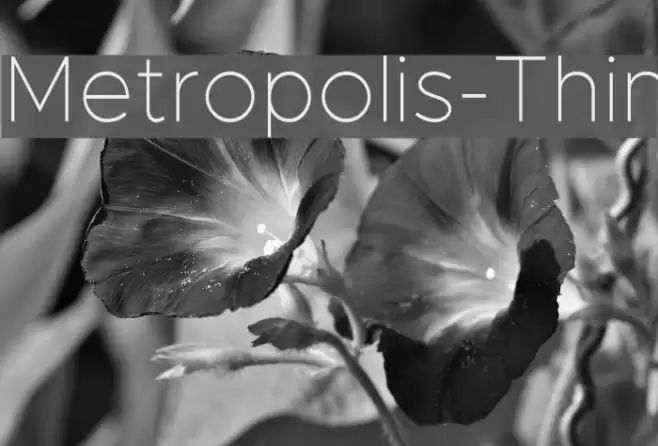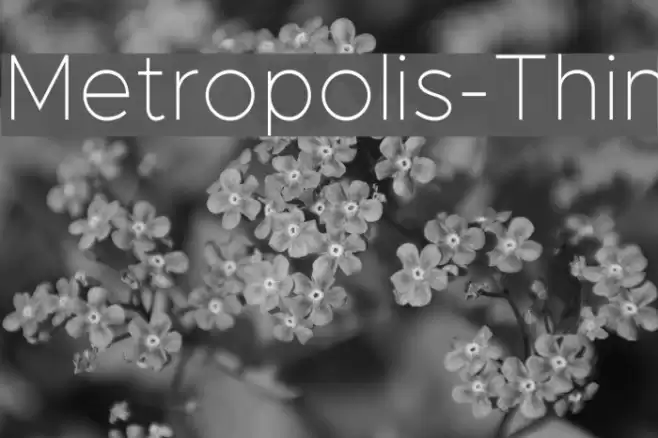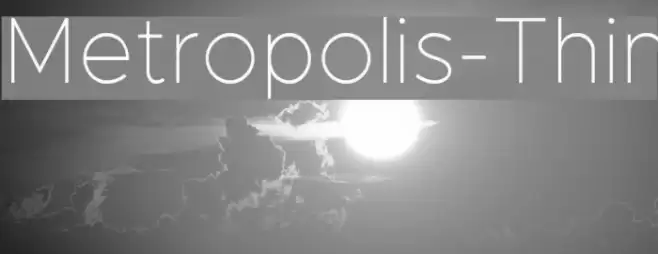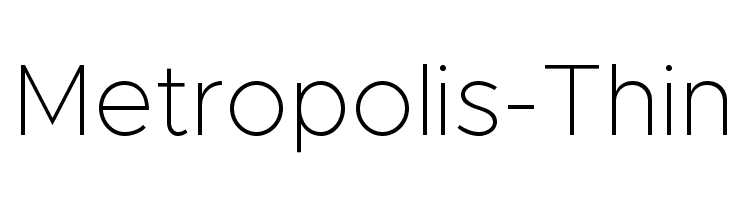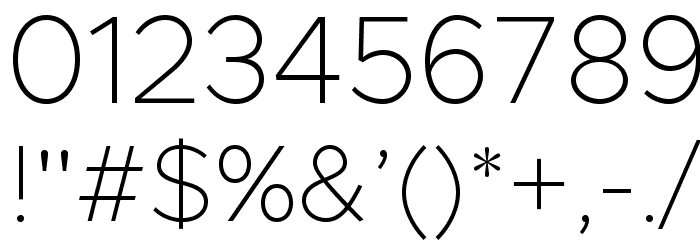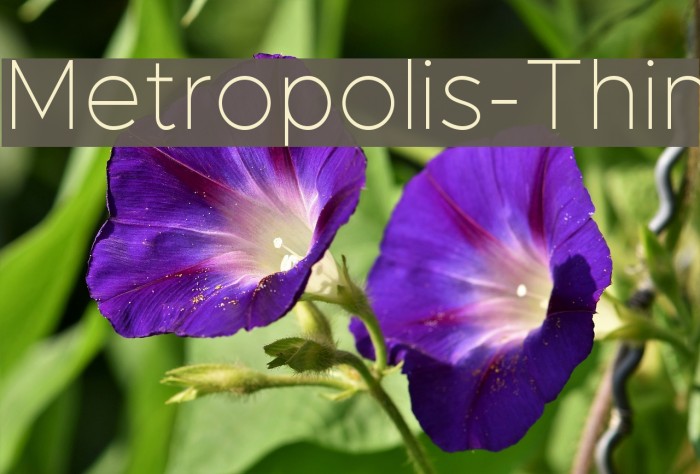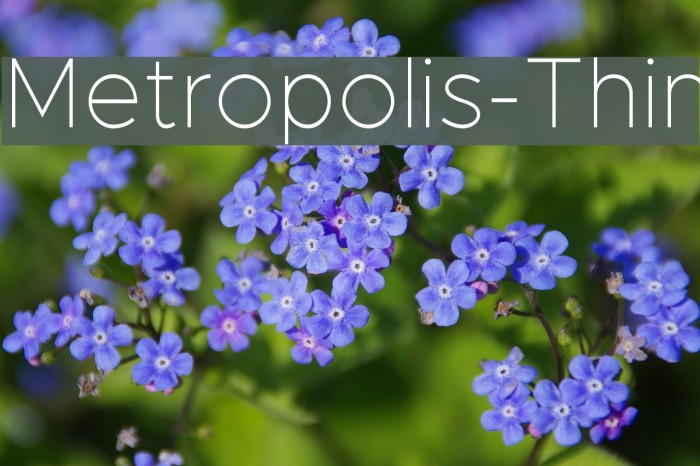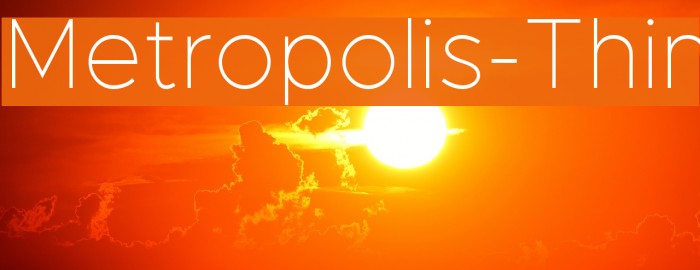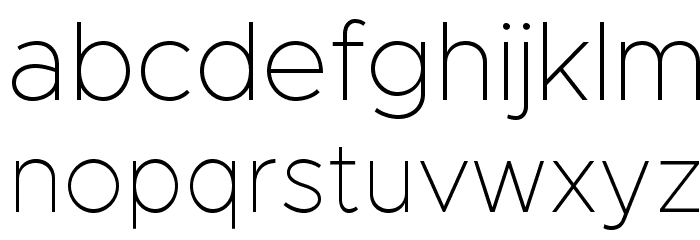
Metropolis-Thin Font
Metropolis-Thin Description
This font exhibits a sleek and modern design with a minimalist aesthetic. It features clean, geometric lines and a uniform stroke width, contributing to its contemporary appeal. The characters are well-proportioned, with a focus on clarity and readability. The uppercase letters are slightly taller than the lowercase, maintaining a balanced and harmonious look. The numerals and special characters are designed with the same attention to detail, ensuring consistency throughout. This font's simplicity and elegance make it versatile for various design applications.
A sleek, modern font with clean lines and uniform stroke width from Uncategorized fonts.